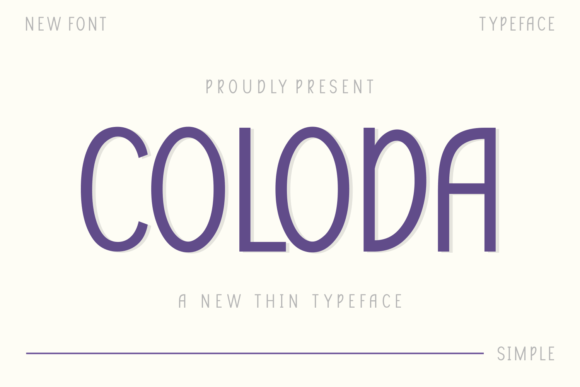
Introducing Coloda Font: Elevate Your Design Projects with Elegance
Are you tired of using the same old fonts for your design projects? Look no further! Coloda Font is a stunning display typeface that is sure to take your designs to the next level. With its unique and distinctive style, Coloda is perfect for a variety of applications, from invitations and marketing brochures to storybooks and clothing designs.
The Story Behind Coloda Font
Coloda Font was created with the intention of providing designers with a fresh and exciting alternative to traditional fonts. The designers behind Coloda wanted to craft a typeface that would be both elegant and eye-catching, making it perfect for projects that require a touch of sophistication. With its gorgeous display style, Coloda is sure to make your designs stand out from the crowd.
What Makes Coloda Font So Special?
So, what sets Coloda Font apart from other typefaces? Here are just a few features that make it a standout:
- Unique Style: Coloda has a distinctive style that is both modern and elegant. Its unique letterforms and typography make it perfect for designs that require a touch of sophistication.
- Versatile: Coloda is a versatile font that can be used for a wide range of applications, from print materials like invitations and brochures to digital projects like clothing designs and storybooks.
- Easy to Read: Despite its elegant style, Coloda is still easy to read, making it perfect for designs that require a clear and concise message.
Uses for Coloda Font
So, what can you use Coloda Font for? The possibilities are endless! Here are just a few ideas to get you started:
- Invitations: Whether you’re planning a wedding, birthday party, or other special event, Coloda Font is perfect for creating beautiful and elegant invitations.
- Marketing Brochures: Coloda’s unique style makes it perfect for marketing brochures that require a touch of sophistication.
- Storybooks: Coloda’s elegant style makes it perfect for storybooks and other children’s literature.
- Clothing Designs: Coloda can be used to create stunning clothing designs, from t-shirts to hoodies.
Tips for Using Coloda Font
Here are a few tips for getting the most out of Coloda Font:
- Use it sparingly: Coloda Font is a display typeface, so it’s best to use it sparingly. Use it for headings and titles, and pair it with a simpler font for body text.
- Experiment with colors: Coloda Font looks great in a variety of colors, so don’t be afraid to experiment. Try pairing it with bright and bold colors for a statement look.
- Pay attention to spacing: Make sure to pay attention to spacing when using Coloda Font. Give it plenty of room to breathe, and avoid overcrowding it with other text or graphics.
In conclusion, Coloda Font is a gorgeous display typeface that is sure to elevate your next design project. With its unique and distinctive style, Coloda is perfect for a variety of applications, from invitations and marketing brochures to storybooks and clothing designs. Whether you’re a designer, crafter, or DIY enthusiast, Coloda Font is a great choice for anyone looking to add a touch of elegance to their designs.